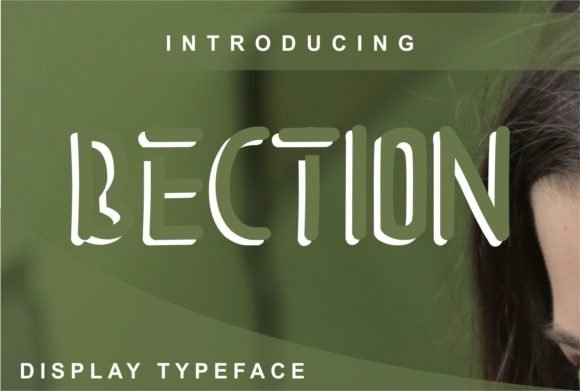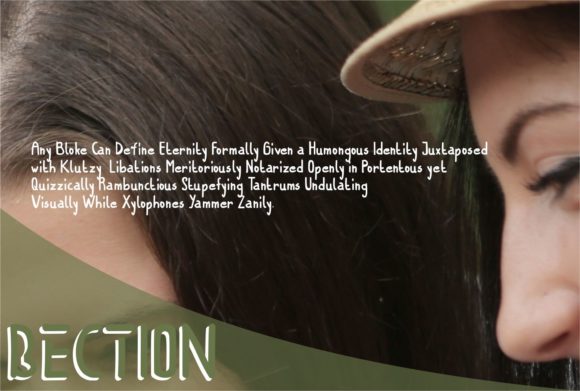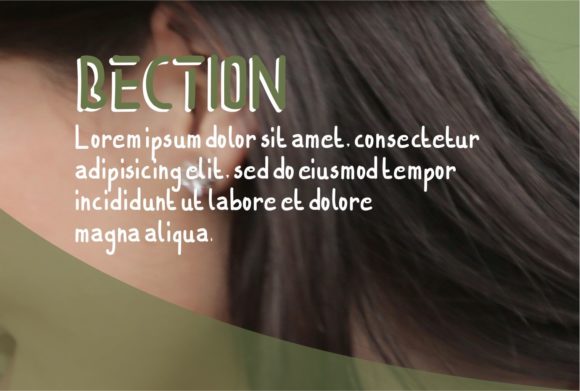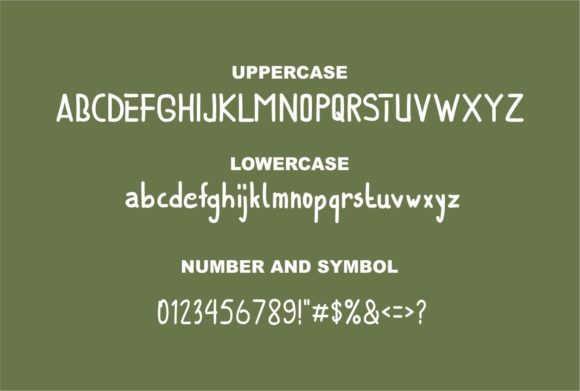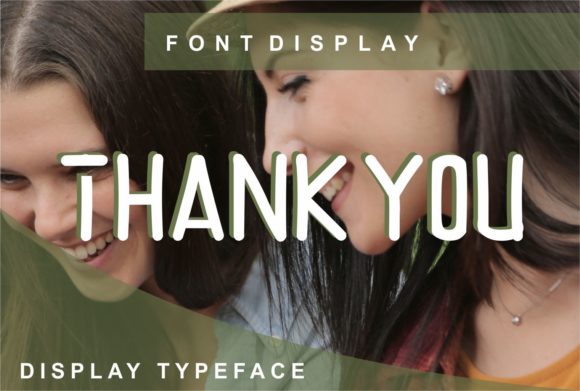
Unleash Your Creativity with the Perfect Display Font
There’s nothing quite like the thrill of brainstorming a new project, surrounded by scattered sketches, color palettes, and typography samples. The blank page stares back at you, waiting for your creative spark to ignite. And then, it hits you – the perfect font. One that elevates your design from ordinary to extraordinary.
Enter Bection Font, a clean and adaptable display font designed to make your posters, flyers, and prints stand out. With its versatility and sleek aesthetic, Bection Font is the perfect companion for any designer looking to add a touch of sophistication to their work.
Whether you’re a seasoned pro or just starting out, Bection Font offers endless possibilities for creative expression. Its value lies in its ability to bring your vision to life, making it an essential tool for any designer looking to take their designs to the next level.
Bection Font Key Features
- Unique Characteristics: Bection Font features a unique blend of modern and traditional design elements, making it perfect for creating visually appealing and professional-looking designs.
- Scalability: Bection Font is highly scalable, allowing it to be used effectively in various design contexts, from small text to large headlines.
Bection Font Review
I’ve had the chance to work with the Bection Font, and here’s my honest take:
- ✨ Unique aesthetic: Bection Font has a distinctive, futuristic feel that can add a touch of elegance to modern designs.
- ✨ Legibility: The font is highly legible, making it suitable for body text and longer passages.
- ✨ Customization options: Bection Font comes with a range of weights, styles, and sizes, giving designers a good level of flexibility.
- ⚠️ Limited versatility: While Bection Font is great for modern designs, it may not be the best choice for more traditional or classical projects.
- ⚠️ Overuse: The font’s unique style can be a double-edged sword; overusing it can lead to a dated or inconsistent look.
- ⚠️ Limited support: Bection Font may not be compatible with all operating systems or devices, which can cause issues with text rendering.
Bection Font is a solid choice for designers looking to add a modern touch to their projects. While it has its limitations, it’s a great option for those who want to experiment with a unique aesthetic. With careful use and consideration, Bection Font can be a valuable addition to any designer’s toolkit.
Tip: Use Bection Font for headings to create a striking visual effect.
Tip: Use Bection Font for creative typography projects.
Tip: Use Bection Font for presentations and reports to add a touch of elegance.
Bection Font is ideal for:
- Creative typography projects
- Brand identity and logo design
- Editorial and publishing projects
Alternatives to Bection Font for Designers
Montserrat is a sans-serif font designed by Julieta Ulanovsky. It’s a great alternative to Bection Font for projects that require a clean and modern look. Montserrat has a similar geometric feel to Bection Font, but with a more open and airy feel.
Use Montserrat when you need a font that’s easy to read on screens and in print. It’s perfect for websites, mobile apps, and digital products.
Comparison to Bection Font: Montserrat has a more geometric feel and is more suitable for digital products, while Bection Font has a more rounded feel and is often used for branding and logos.